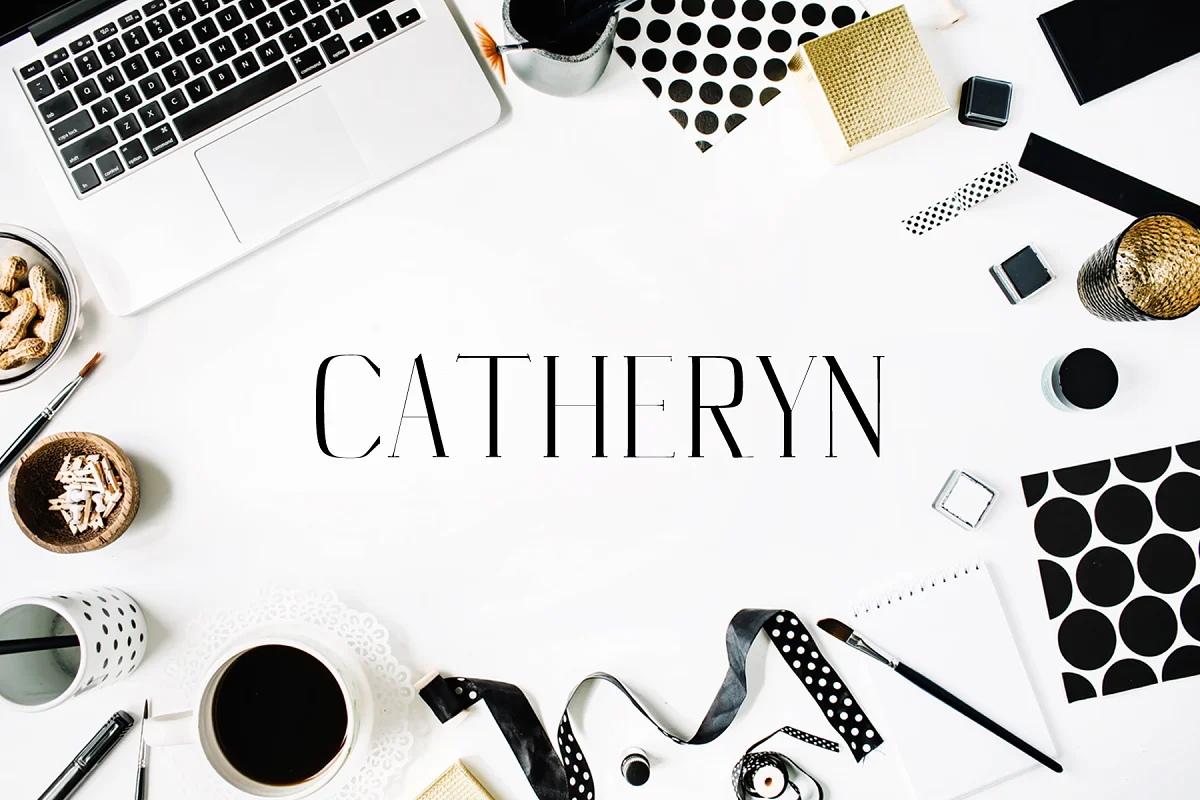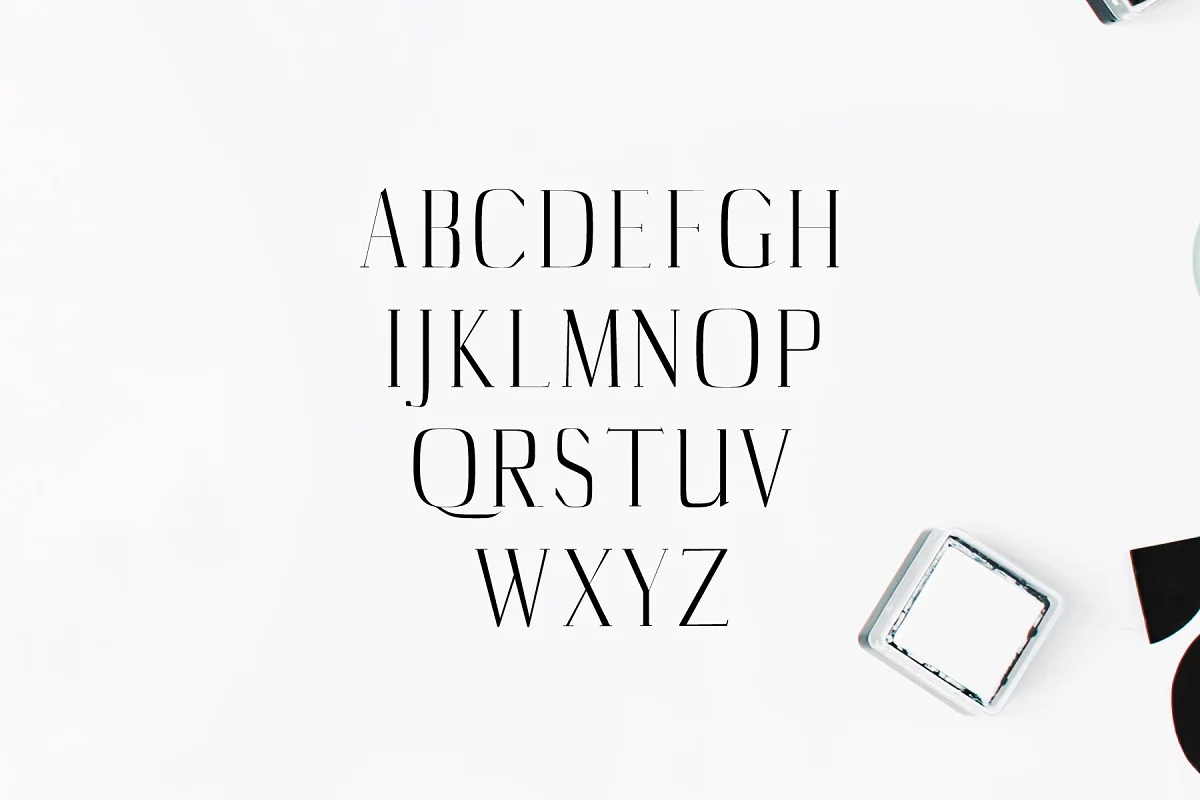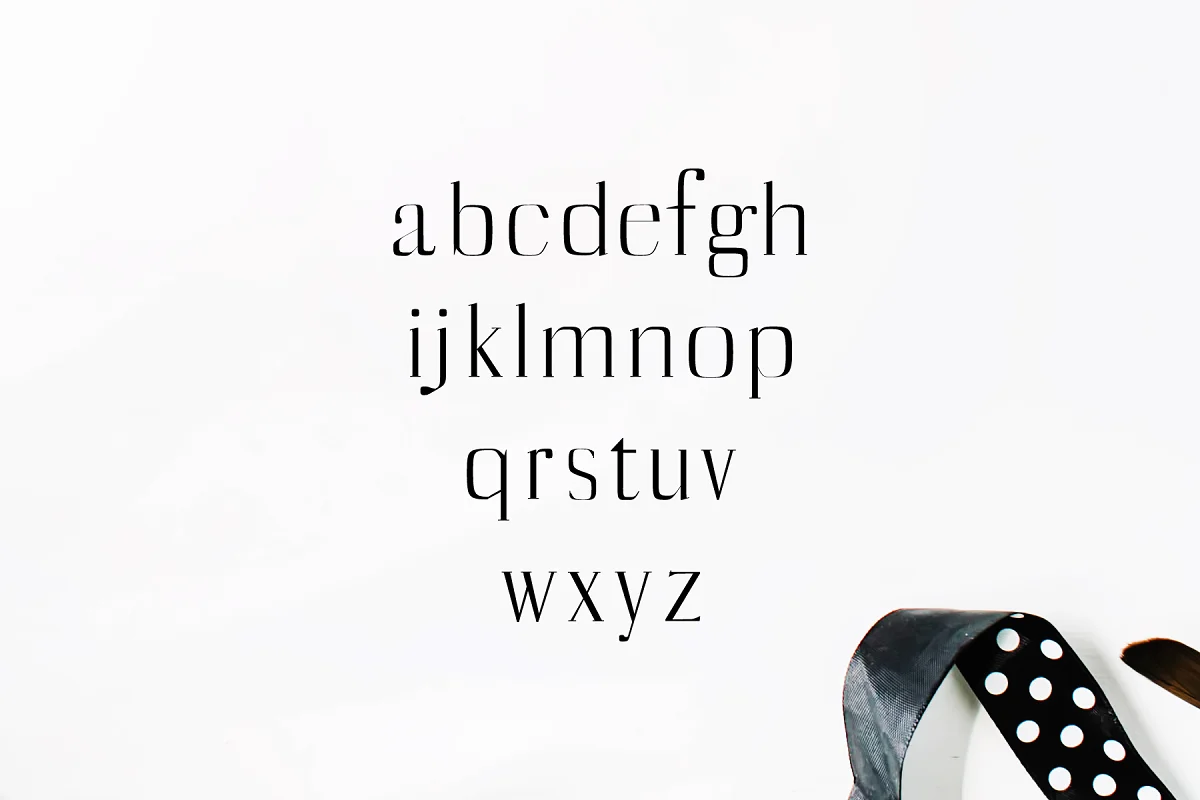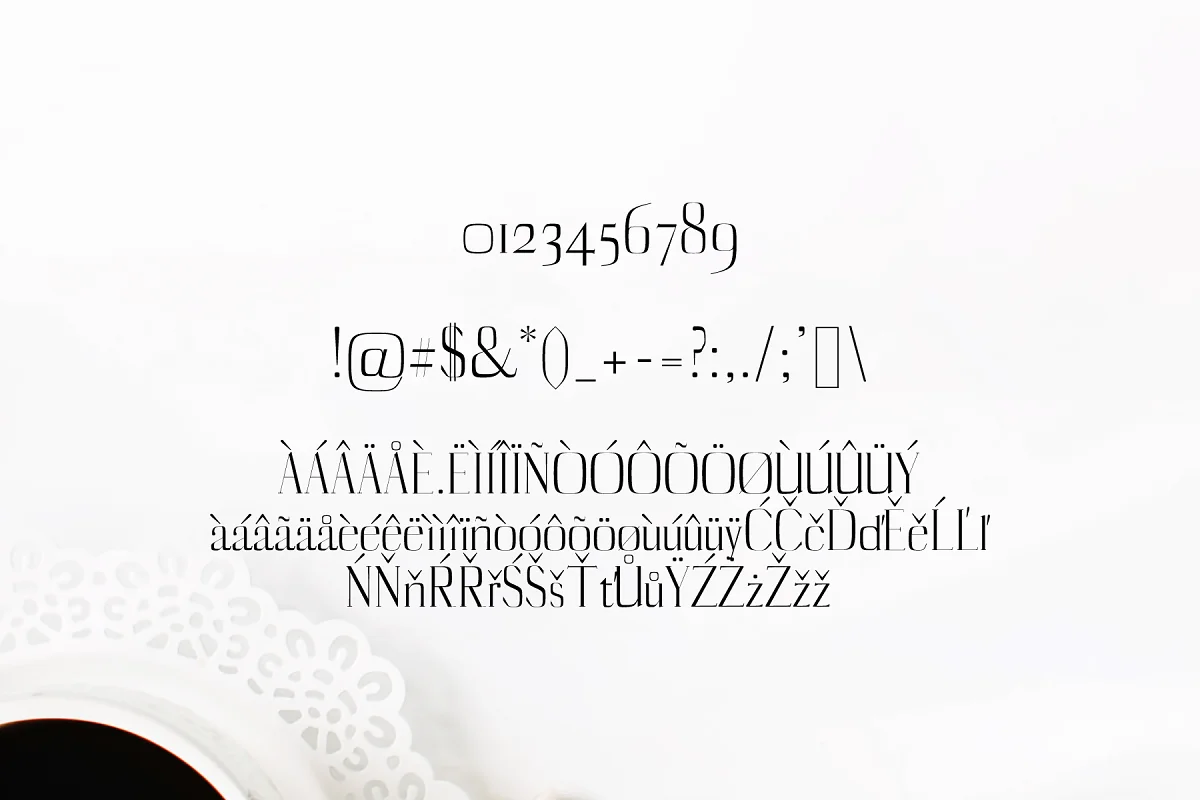
About the Catheryn Serif 4 Font
Catheryn Serif Typeface is a clean 4 font family pack, It features a unique and modern serif look and feels. Perfect for gorgeous logos, titles, web layouts and branding.
It looks gorgeous in all caps with a wide-set spacing if you want to try a classy look, or beautiful on its own in capital and lowercase letters for something completely timeless.
- Font Weight: Regular, Light, Thin, and Bold
Catheryn Font Features:
- Uppercase Multilingual Letters
- Lowercase Multilingual Letters
- Numbers & Punctuation
- Non-English Characters ( Latin Supplement + Latin Extended-A)